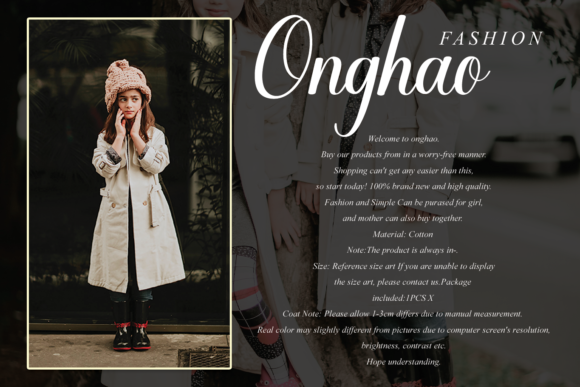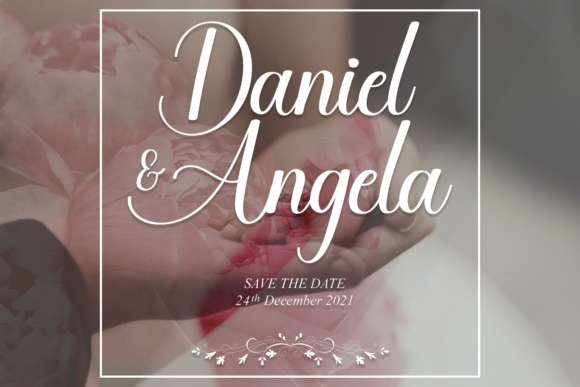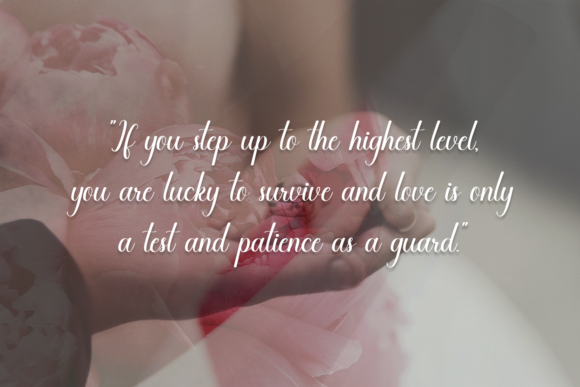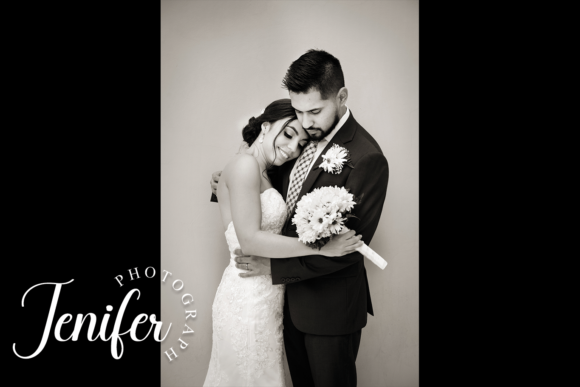
Introducing Always Smile Font: Elevate Your Designs with Elegance and Sophistication
In the world of typography, a well-crafted font can make all the difference in transforming a design from ordinary to extraordinary. For designers and crafters seeking to infuse their projects with a touch of elegance and sophistication, the Always Smile Font is an exquisite choice. This beautifully handwritten font is meticulously designed to capture the essence of classy calligraphic influences while exuding a contemporary and fresh feel.
The Charm of Always Smile Font
Always Smile Font is more than just a typeface; it’s an artistic expression that can elevate your designs to new heights. Its unique blend of traditional calligraphy and modern sensibilities makes it a versatile tool for a wide range of creative projects. Whether you’re working on wedding invitations, branding materials, packaging, or digital content, this font is sure to leave a lasting impression.
Key Features of Always Smile Font
- Exquisite Handwritten Design: Each letter is carefully crafted by hand, giving the font a personal and intimate feel that’s perfect for designs that require a human touch.
- Classy Calligraphic Influences: The font maintains a level of sophistication and elegance reminiscent of traditional calligraphy, making it ideal for high-end branding and luxury projects.
- Contemporary and Fresh: Despite its classic roots, Always Smile Font feels modern and relevant, ensuring your designs are both timeless and current.
- Versatility: This font can be used across various mediums, from print to digital, and is suitable for a multitude of design applications.
- Ease of Use: Designed with the user in mind, Always Smile Font is easy to incorporate into your projects, allowing you to focus on the creative aspect of your work.
Why Choose Always Smile Font?
Choosing the right font for your project can be a daunting task, given the vast options available. However, Always Smile Font stands out for several reasons:
- Unique Aesthetic: Its distinctive look sets it apart from more generic fonts, ensuring your designs have a unique and memorable appearance.
- Emotional Connection: The warmth and friendliness of the font help create an emotional connection with your audience, making your designs more impactful.
- Time-Saving: With its comprehensive set of characters and ease of use, Always Smile Font can significantly streamline your design process.
Applications of Always Smile Font
The versatility of Always Smile Font makes it suitable for a wide array of applications, including:
- Wedding and Event Stationery: Add a touch of romance and sophistication to wedding invitations, save-the-dates, and other event materials.
- Branding and Logo Design: Create a lasting impression with a logo or brand identity that exudes elegance and professionalism.
- Packaging Design: Elevate your product packaging with a font that communicates luxury and quality.
- Digital Content: Enhance your website, blog, or social media graphics with a font that offers both readability and style.
Always Smile Font is a beautifully crafted typeface that brings a perfect blend of classic elegance and modern freshness to your designs. Its exquisite handwritten design, coupled with its versatility and ease of use, makes it an invaluable asset for designers and crafters looking to create stunning and memorable projects. Whether you’re aiming to add a touch of sophistication to your branding, create beautiful wedding stationery, or simply elevate your digital content, Always Smile Font is sure to exceed your expectations and help you achieve your creative goals.
So, fall in love with Always Smile Font and discover how it can transform your designs into true masterpieces. With this exquisite font, you’ll be well on your way to creating projects that not only look amazing but also resonate with your audience on a deeper level.